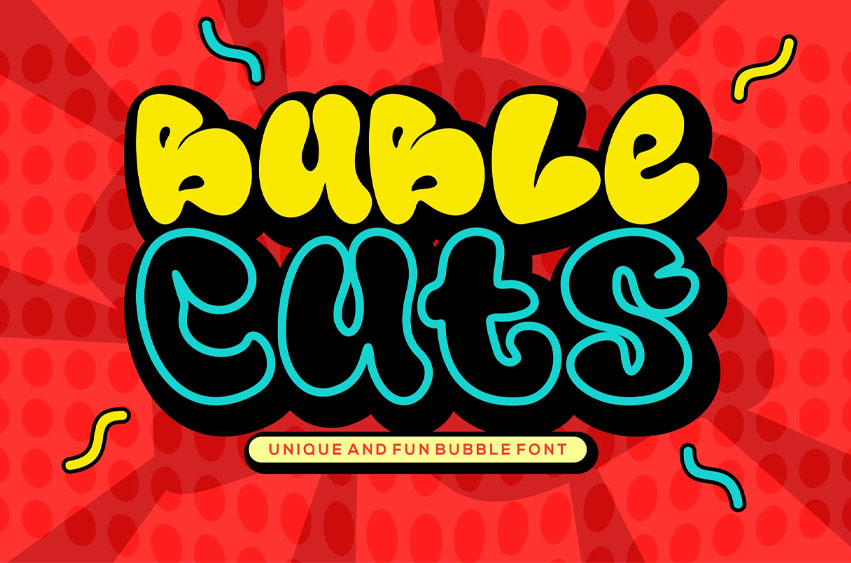
Buble Cuts Font Modern Font is a bold and authentic display font. The font is suitable for any branding project like logo, t-shirt printing, esport, and many more. outstanding in a wide range of contexts.
Buble Cuts Uppercase
Buble Cuts Lowercase
Buble Cuts Alternate